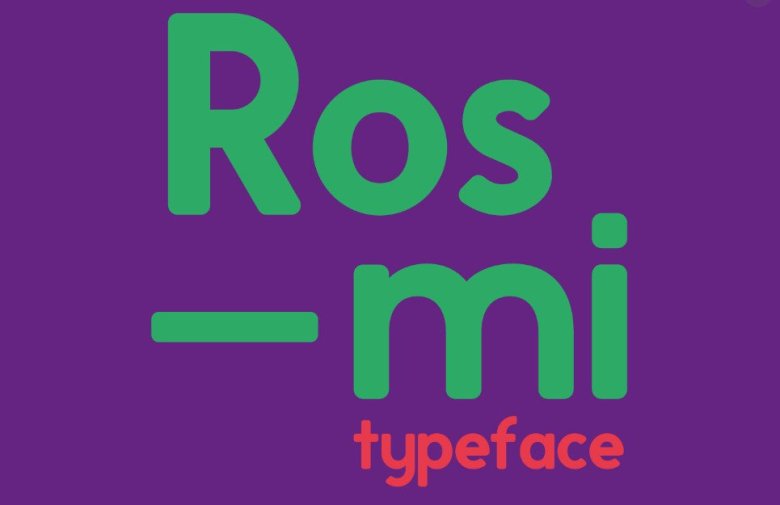
Rosmi Font
Today introduced Rosmi Font!. Rosmi designed and shared by Adrià Romañá. Rosmi is a rounded typeface designed to be used on large sizes but it also works great for texts with medium sizes. Its width and curves make this typeface warm and friendly. A hard but also soft font.